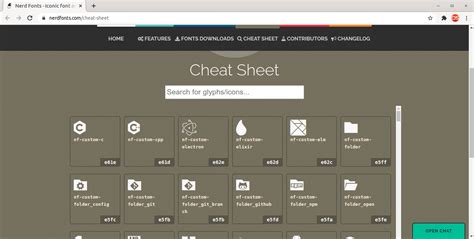
Nerd Font Cheat Sheet. Generated list of nerd font to simplify finding characters that look good in text editors and terminal.
Generated list of nerd font to simplify finding characters that look good in text editors and terminal.
Generated list of nerd font to simplify finding characters that look good in text editors and terminal. Generated list of nerd font to simplify finding characters that look good in text editors and terminal.